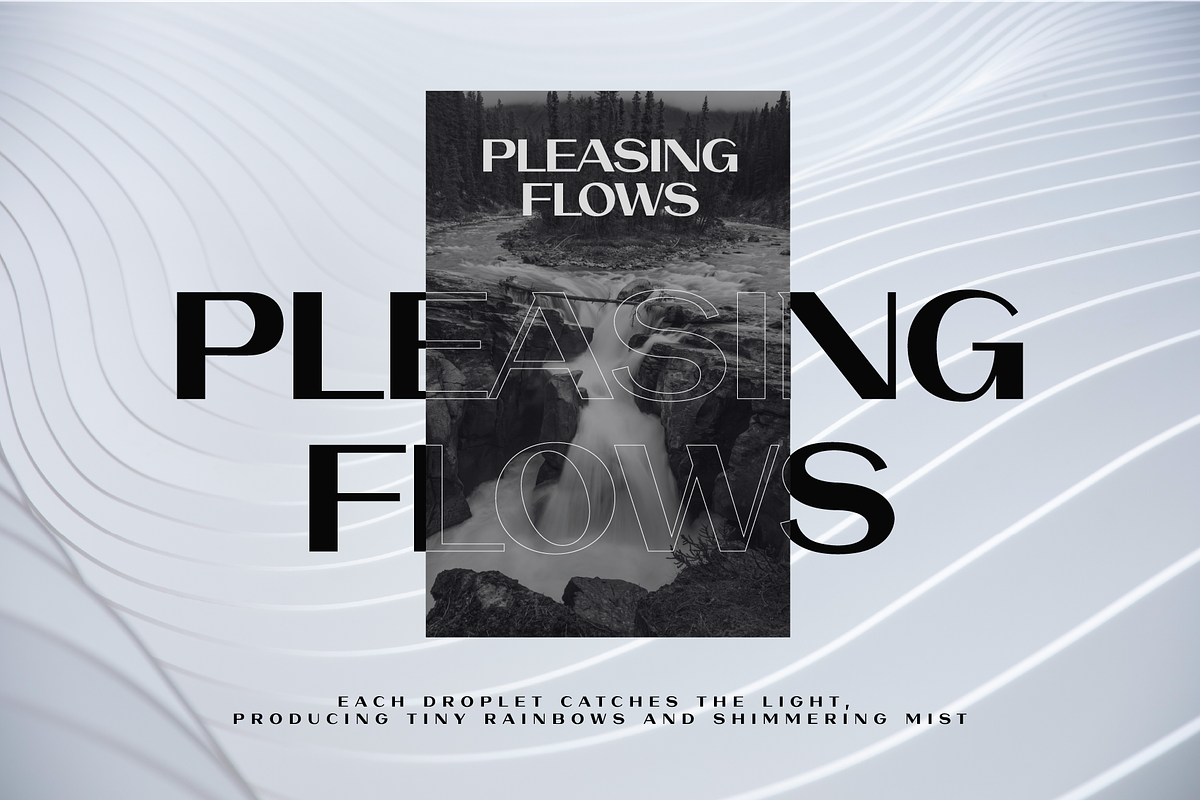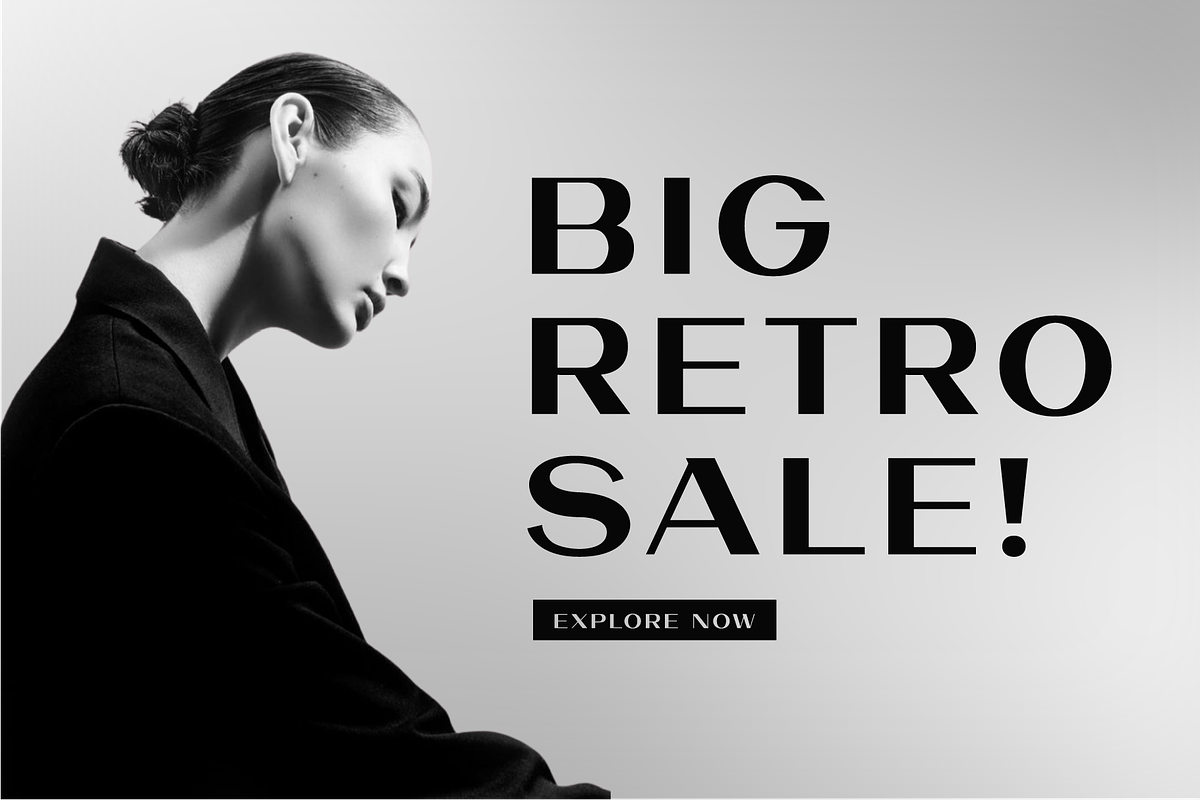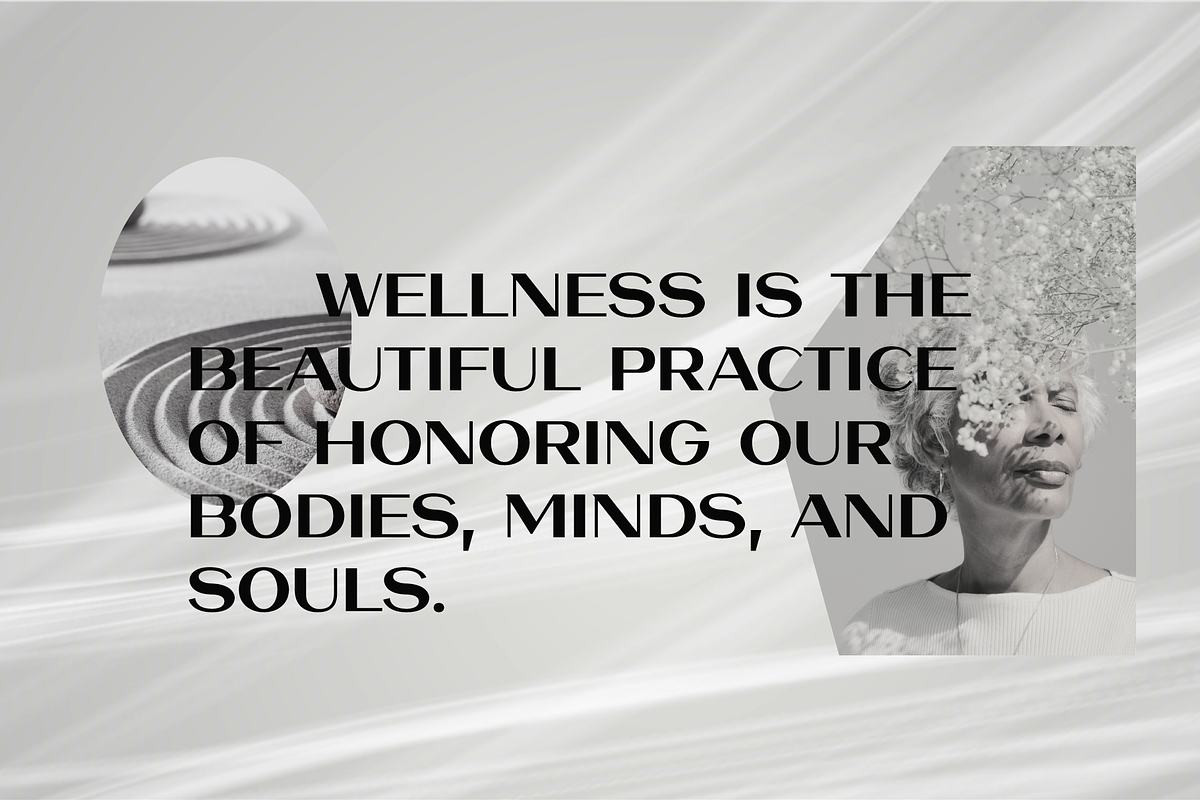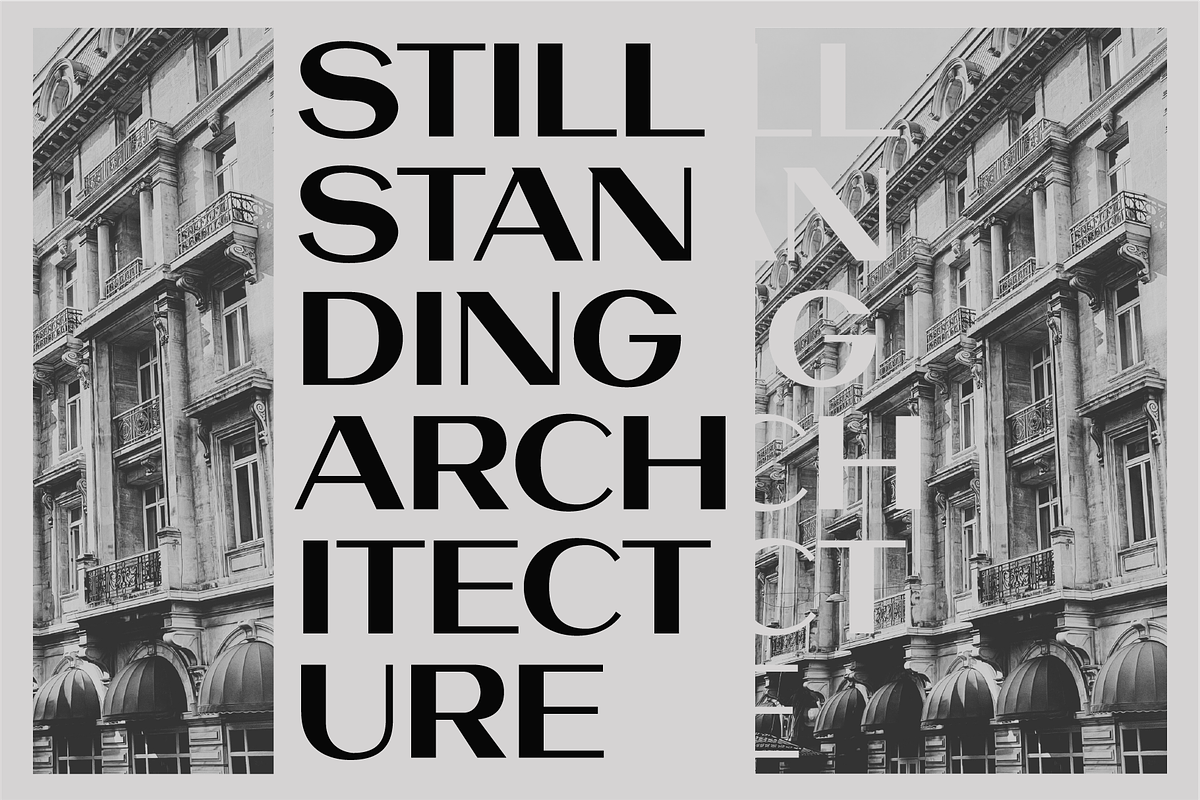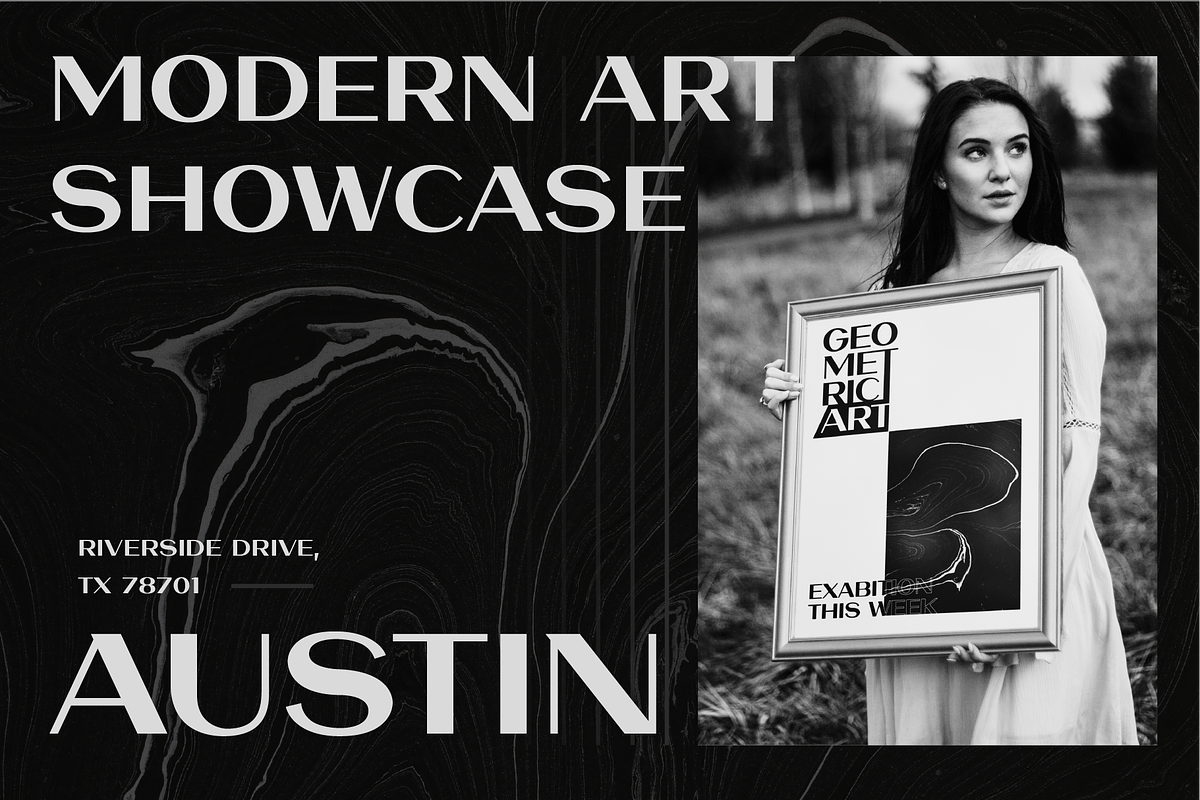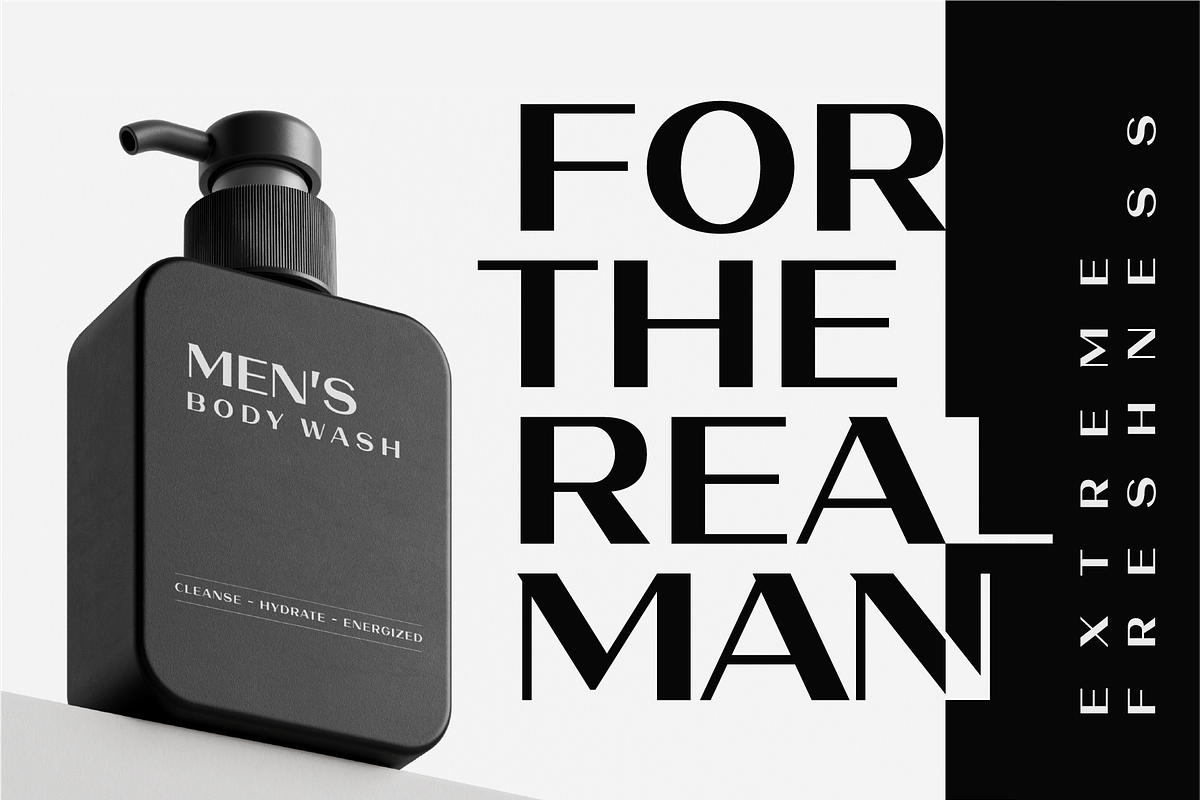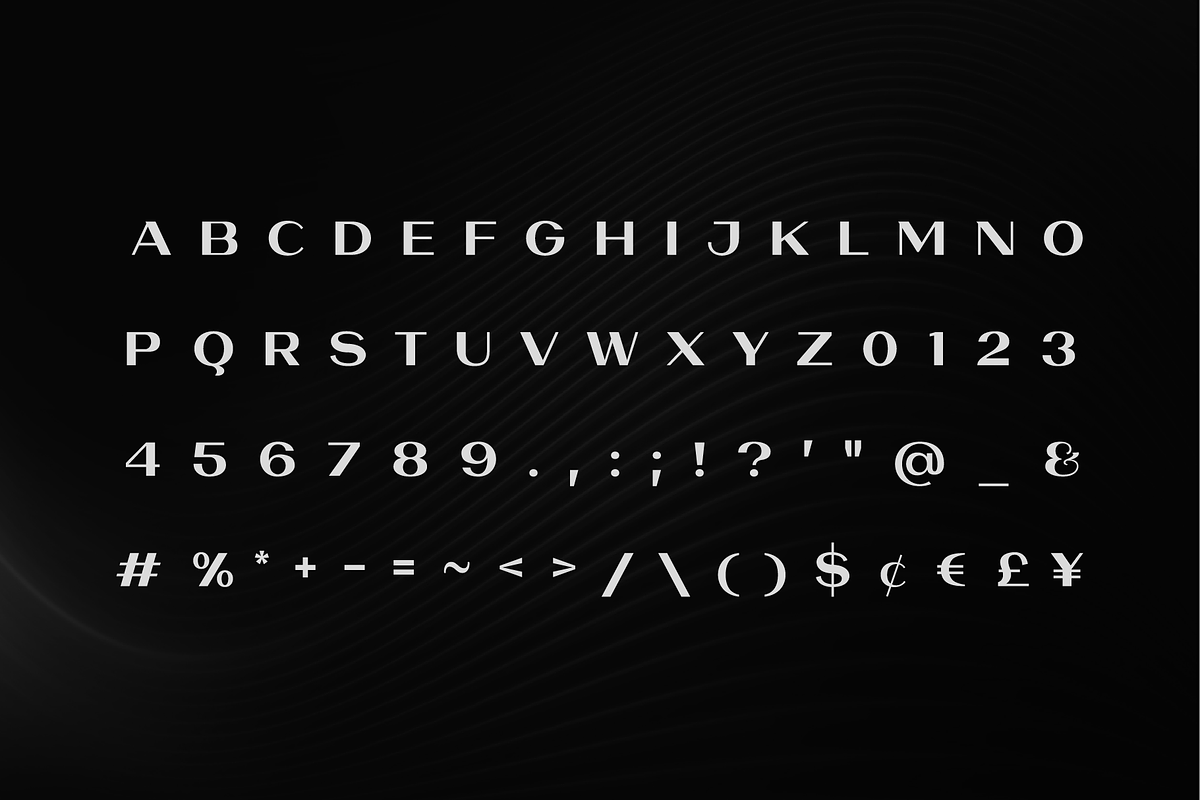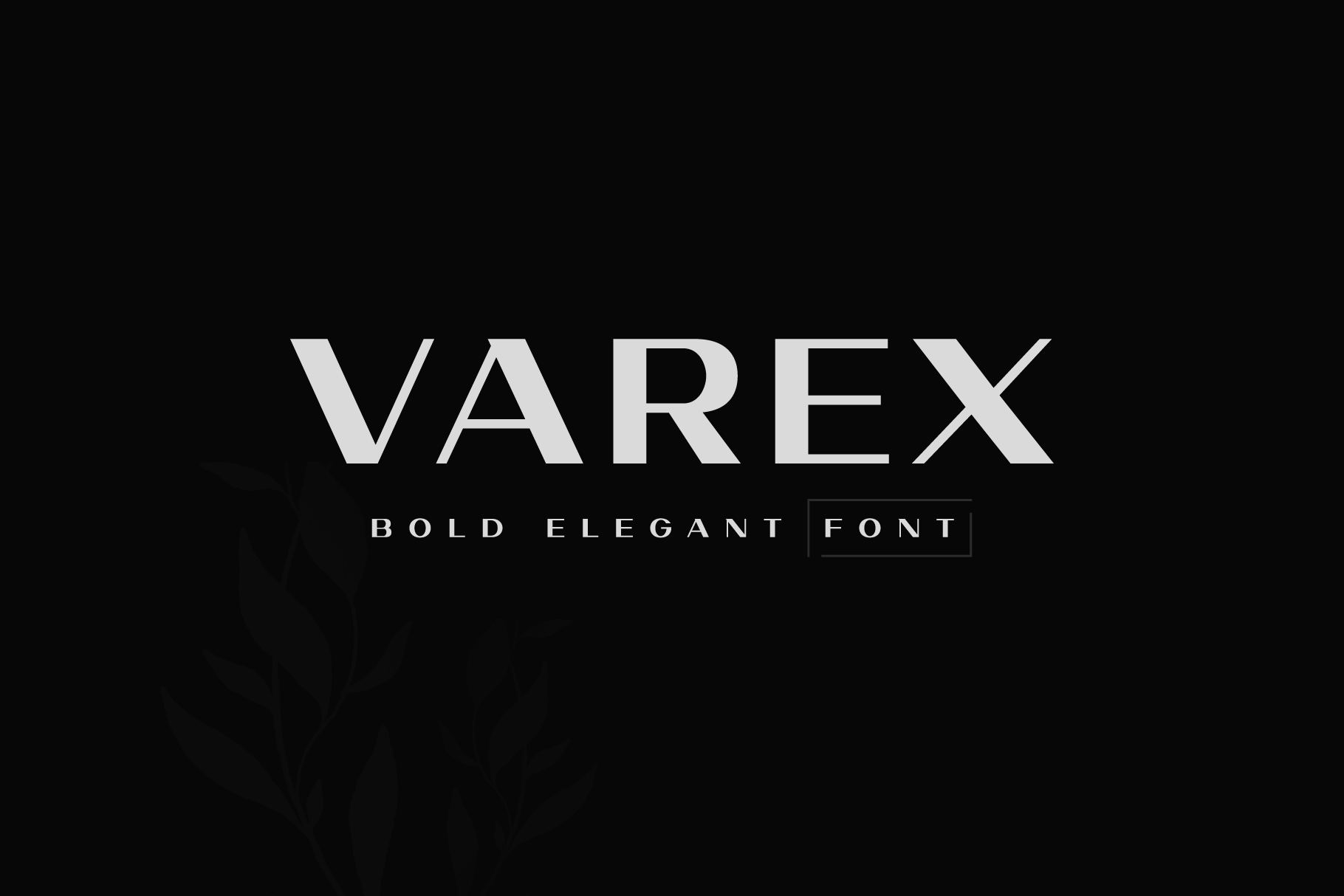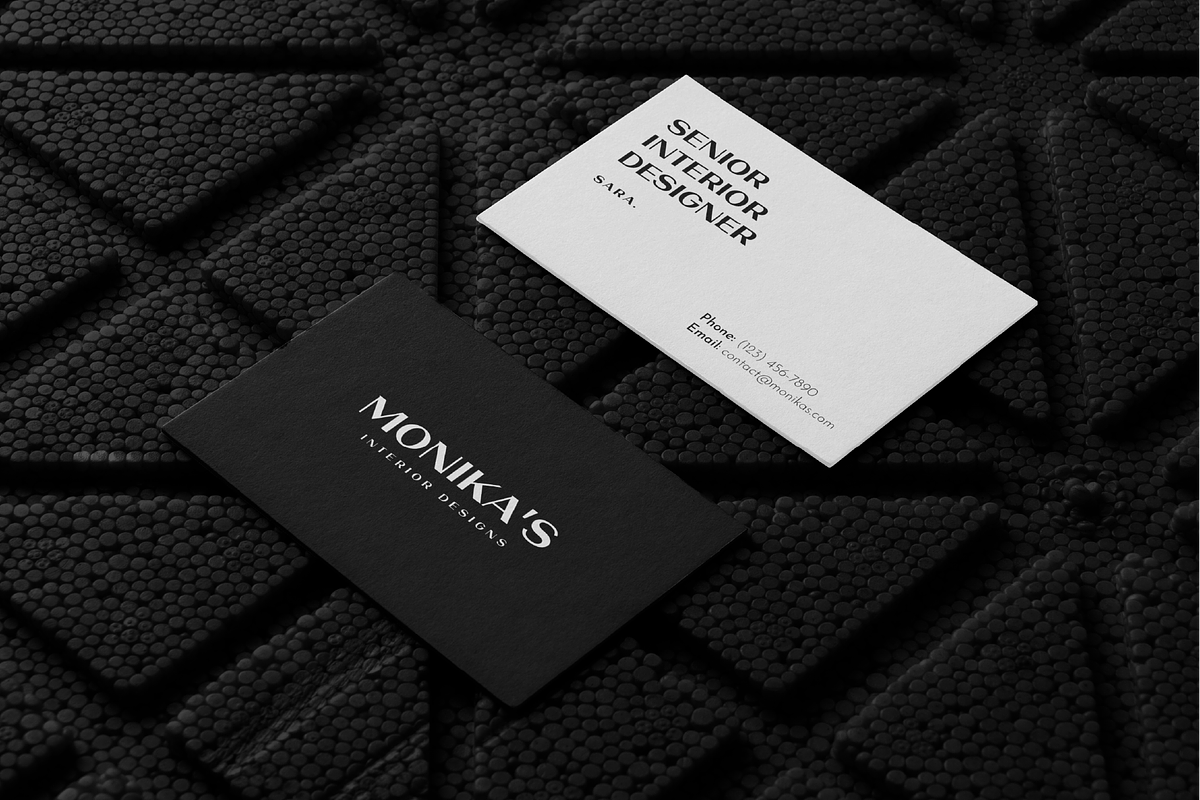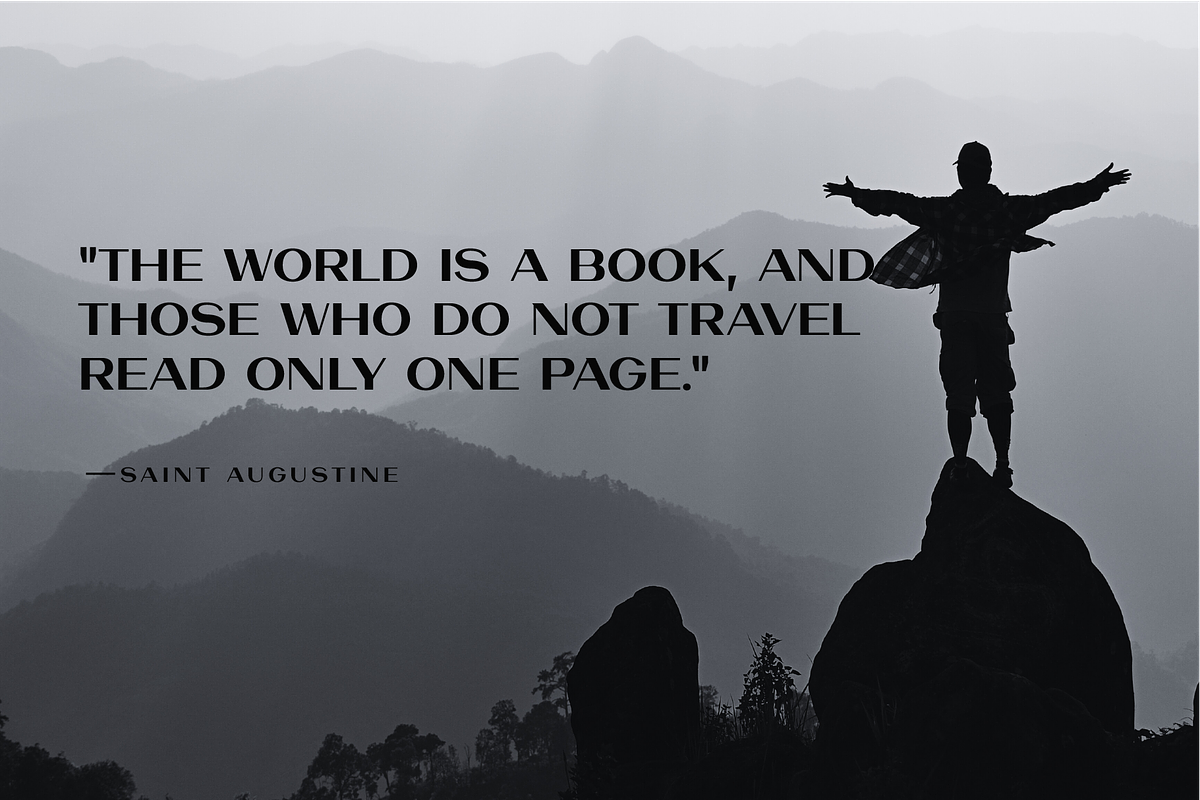
Varex Bold Elegant Sans Serif Font
Varex is a modern yet sleek font, blending elegance with bold confidence. This elegant sans-serif features slightly extended letterforms that exude sophistication, giving the text an upscale, contemporary flair. This extended font features clean lines and subtly wider proportions to ensure that each character stands out without overpowering the composition. The Varex sans serif font captures attention with subtle, refined elegance, ideal for designs that need to feel stylish, and powerful but elegant.